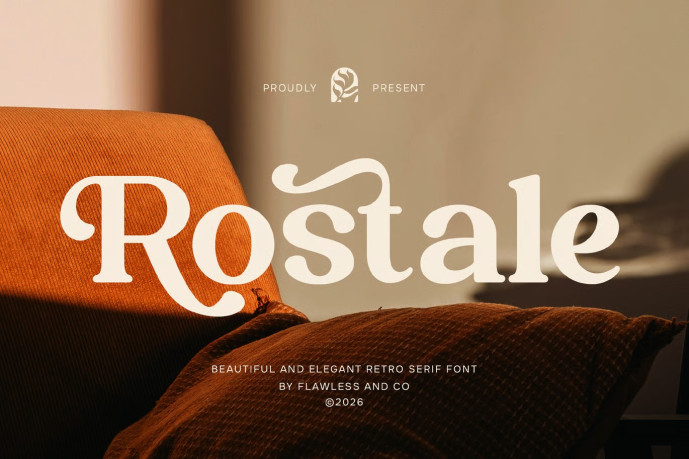
Rostale – Elegant Retro Serif Font
Designer: Flawlessandco
Rostale is a beautifully crafted retro serif font designed to capture the elegance of classic typography with a fresh modern perspective. Featuring refined serif details, flowing curves, and vintage-inspired letterforms, Rostale delivers a sophisticated visual style that feels graceful, stylish, and timeless. Its distinctive character creates the perfect balance between retro nostalgia and contemporary elegance, making it a versatile choice for premium design projects.